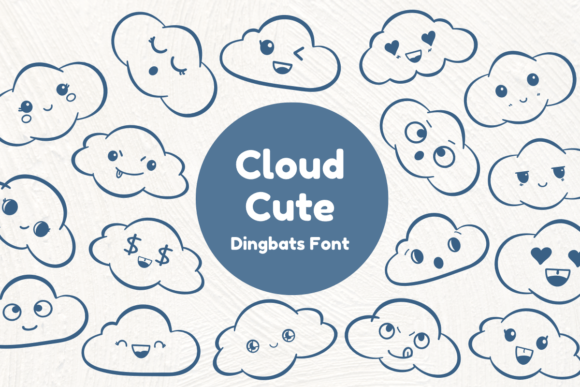
Introducing Cloud Cute Font: A Sketched Dingbats Font for Creative Projects
Are you looking for a unique and creative font to enhance your projects? Look no further than Cloud Cute Font, a dingbats font with a sketched style that’s perfect for a variety of creative endeavors. In this article, we’ll explore the features and benefits of Cloud Cute Font, and show you how it can elevate your wedding invitations, DIY projects, crafts, decorations, logos, and more.
What is Cloud Cute Font?
Cloud Cute Font is a dingbats font that features a charming, sketched style. Dingbats fonts are a type of font that consists of symbols, icons, and illustrations rather than traditional letters and numbers. Cloud Cute Font is a collection of adorable illustrations that can be used to add a personal touch to your projects.
Features of Cloud Cute Font
Cloud Cute Font has several features that make it a versatile and valuable addition to your font collection. Some of its key features include:
- Sketched style: Cloud Cute Font has a unique, hand-sketched style that’s perfect for creating a personal and whimsical touch.
- Dingbats illustrations: The font includes a range of illustrations, including icons, symbols, and shapes that can be used to enhance your projects.
- Scalable: The font is scalable, so you can use it for a variety of projects, from small crafts to large-scale designs.
Uses for Cloud Cute Font
Cloud Cute Font is a versatile font that can be used for a wide range of creative projects. Here are some ideas to get you started:
Wedding Invitations
Cloud Cute Font is perfect for wedding invitations, as it adds a touch of whimsy and romance to your design. You can use the font to create custom illustrations, such as flowers, hearts, and birds, to decorate your invitation.
DIY Projects
Cloud Cute Font is great for DIY projects, such as crafting, scrapbooking, and home decor. You can use the font to create custom labels, signs, and decorations that add a personal touch to your project.
Crafts
Cloud Cute Font is perfect for crafters, as it provides a range of illustrations that can be used to decorate cards, gift tags, and other handmade items.
Decorations
Cloud Cute Font can be used to create custom decorations, such as garlands, banners, and signs, that add a personal touch to your party or event.
Logos
Cloud Cute Font can be used to create custom logos for your business or brand. The font’s unique, sketched style makes it perfect for creating a memorable and eye-catching logo.
Tips for Using Cloud Cute Font
Here are some tips for getting the most out of Cloud Cute Font:
- Experiment with different sizes: Cloud Cute Font is scalable, so don’t be afraid to experiment with different sizes to find the one that works best for your project.
- Mix and match illustrations: Cloud Cute Font includes a range of illustrations, so try mixing and matching them to create a unique look.
- Use with other fonts: Cloud Cute Font can be paired with other fonts to create a unique and interesting design.
Cloud Cute Font is a versatile and valuable addition to any font collection. Its unique, sketched style and range of illustrations make it perfect for a variety of creative projects, from wedding invitations to DIY crafts. With its ease of use and scalability, Cloud Cute Font is a great choice for designers and non-designers alike.